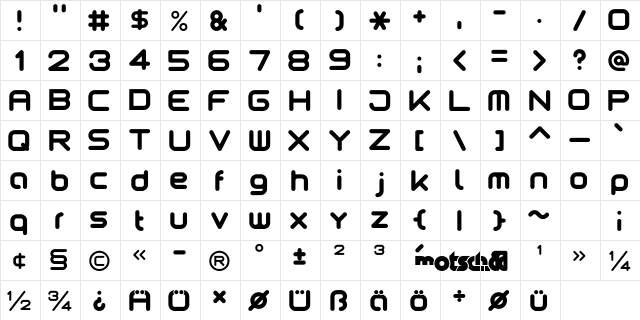
motschcc Regular
Design Context for motschcc Typeface
motschcc offers clean, dependable letterforms without strong stylistic allegiance, making it a practical choice for designers who need flexibility.
Pro Tip: Use motschcc in both headline and body roles to test its range before committing to a single application.